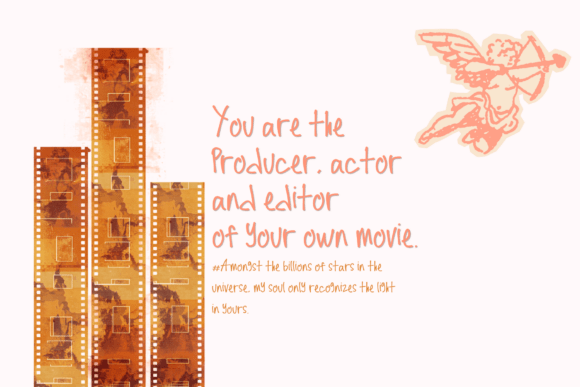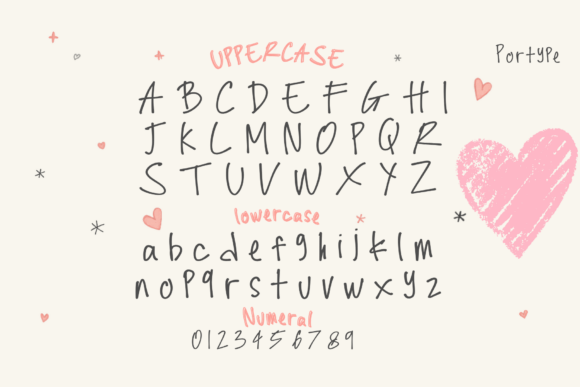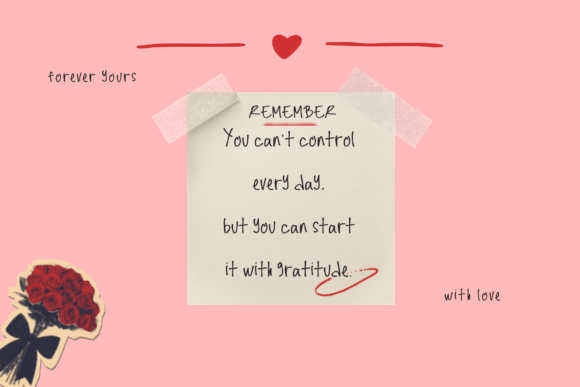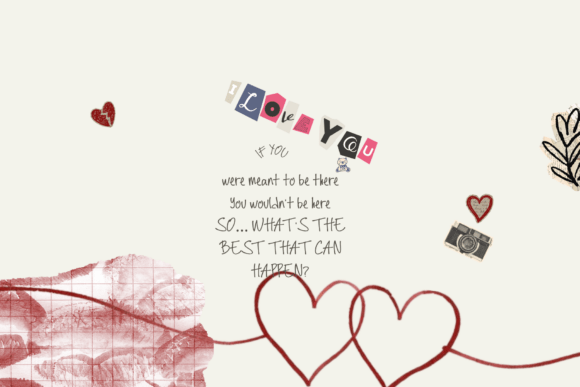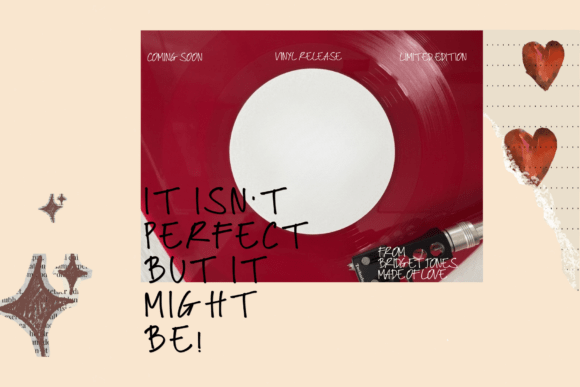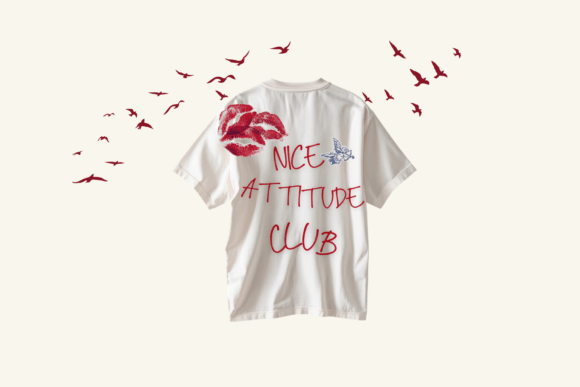
Introduction to Handvera Font Font
Fonts play a crucial role in design, and the Handvera Font font is a typeface that brings both character and versatility to any project. Whether you’re working on a branding project, a website, or a print design, the Handvera Font font offers a unique style that can elevate your work.
Handvera is a soft and charming handwritten typeface designed to bring warmth, emotion, and a personal touch to every design.
Inspired by gentle pen strokes and natural writing flow, this font captures the beauty of imperfection, making each letter feel authentic and heartfelt With its smooth curves and slightly uneven structure, Handvera creates a cozy and friendly visual tone while remaining clear and easy to read.
Key Features of Handvera Font Font
Why Choose Handvera Font Font?
The Handvera Font font is more than just a typeface – it’s a design tool that helps you communicate your message with style and clarity. Its unique character set and versatile design make it suitable for a wide range of applications, from elegant invitations to bold headlines.
With its carefully crafted letterforms and balanced proportions, the Handvera Font font ensures readability and visual appeal across all mediums.
What makes Handvera Font font special?
The Handvera Font font stands out with its unique design, exceptional readability, and versatility across various design applications.